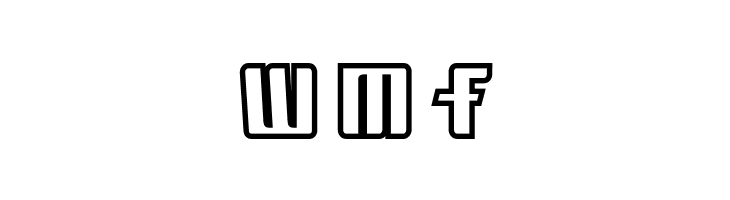
Metrool Font
Font by
A bold, geometric font with strong outlines and a modern, industrial style.
A bold script font with a dynamic shadow effect, perfect for impactful designs.
Blora Extrude Font
Font by Emanes Dsign - Personal-use only. For commercial use please contact owner.
A bold, playful font with a 3D extruded effect and script-like connected characters.
Morgana Font
Font by Emanes Dsign - Personal-use only. For commercial use please contact owner.
A modern, geometric font with bold strokes and a futuristic design.
Blora Based Font
Font by Emanes Dsign - Personal-use only. For commercial use please contact owner.
A bold, decorative font with playful cursive elements and ornate details.
Viyola Font
Font by Emanes Dsign - Personal-use only. For commercial use please contact owner.
A bold, high-contrast serif font with sharp serifs and dramatic presence.
The Djuckie Font
Font by Emanes Dsign - Personal-use only. For commercial use please contact owner.
A playful, whimsical font with bold, curvy, and decorative letterforms.
Calimindo Font Font
Font by Emanes Dsign - Personal-use only. For commercial use please contact owner.
A dynamic, cursive handwritten font with fluid strokes.
Merlinian Font
Font by Emanes Dsign - Personal-use only. For commercial use please contact owner.
An elegant, whimsical script font with flowing, interconnected letters and decorative swirls.
Elestyles Elegature Font